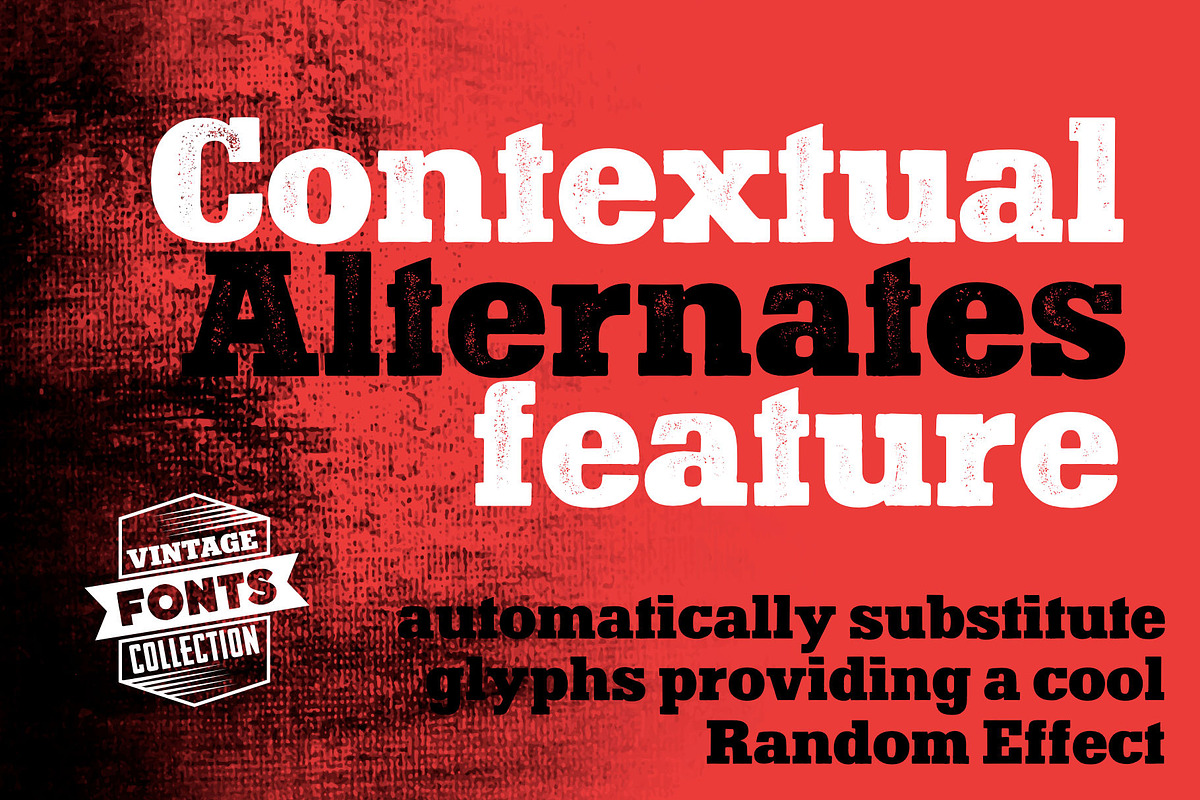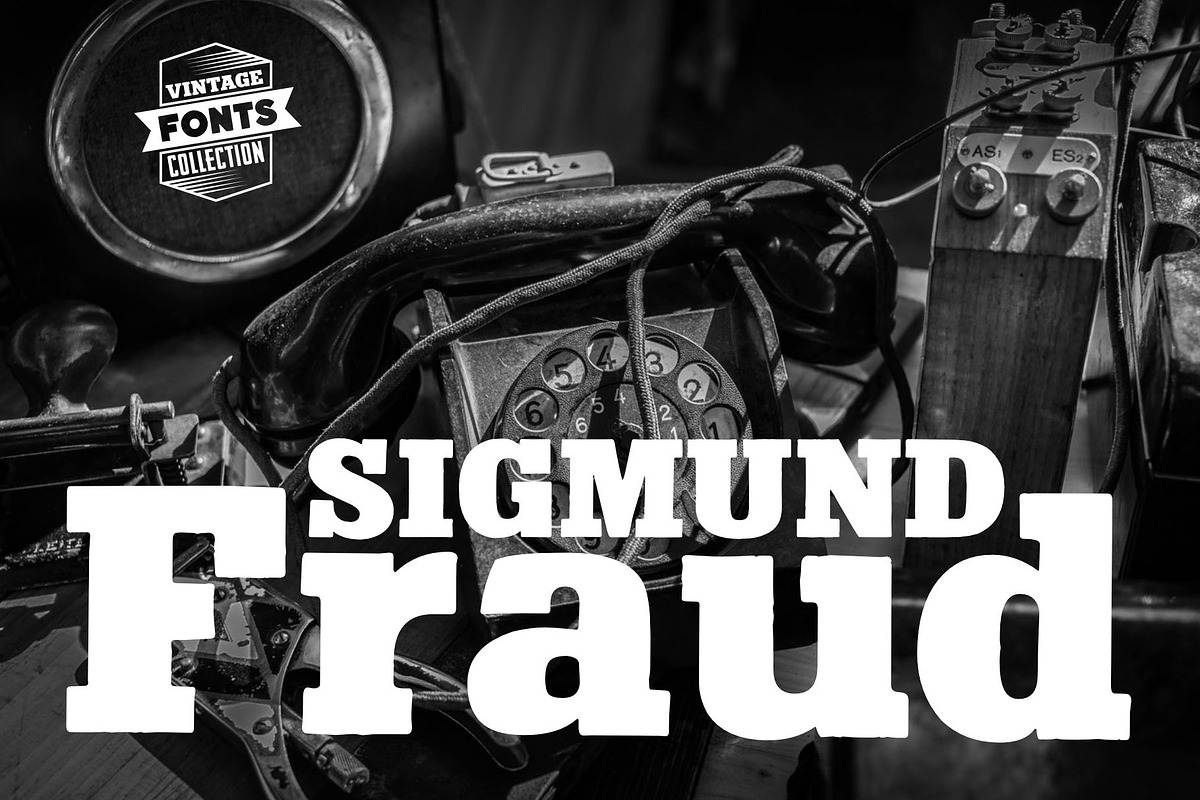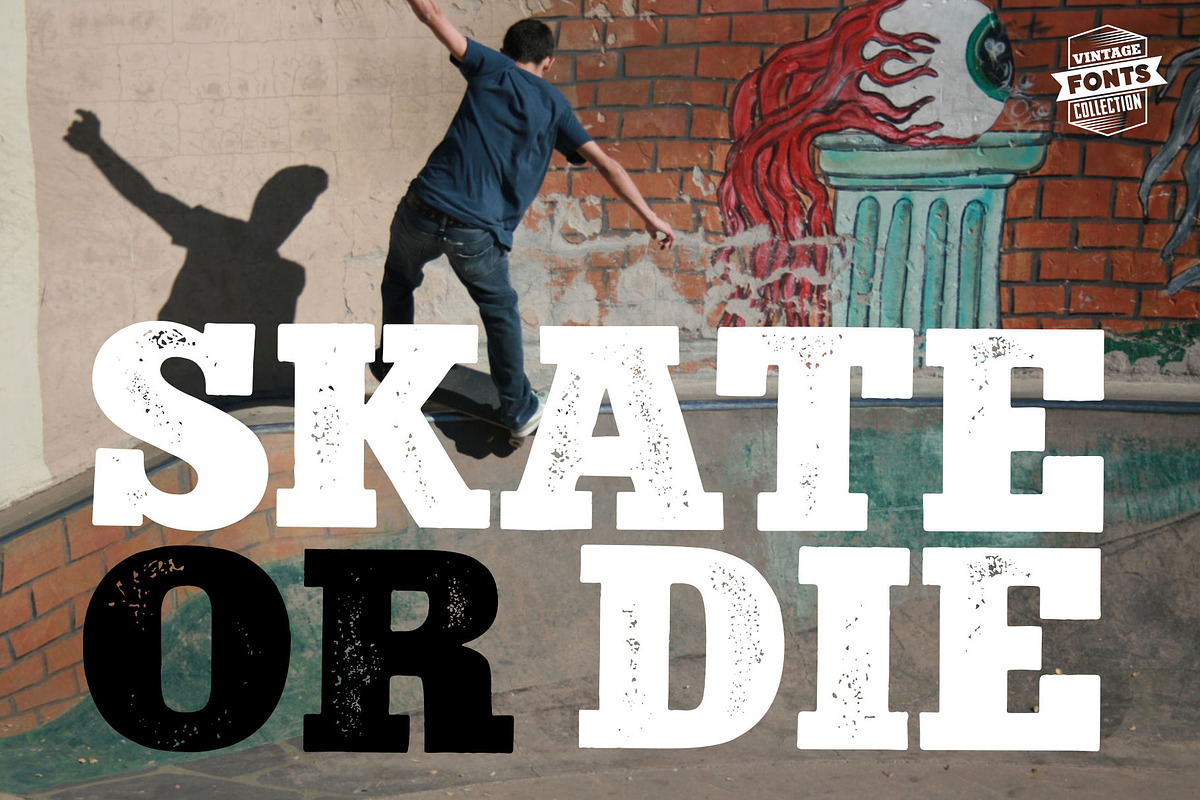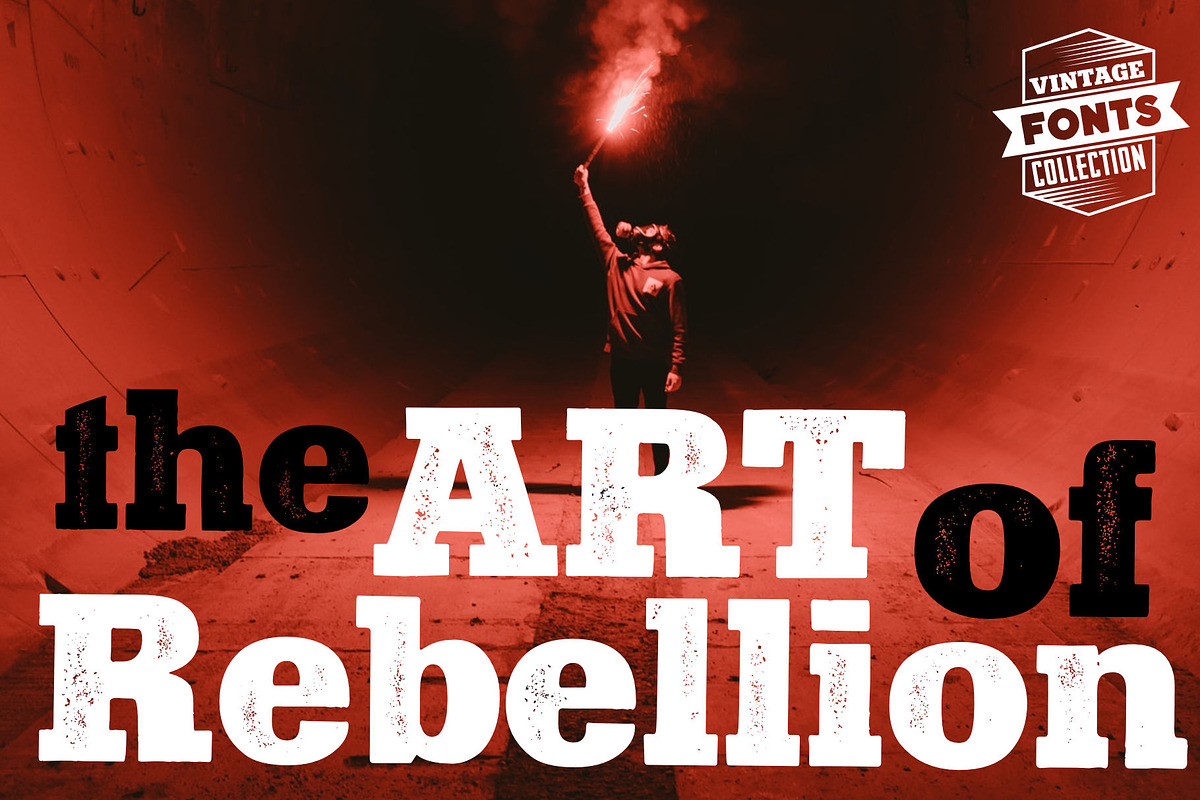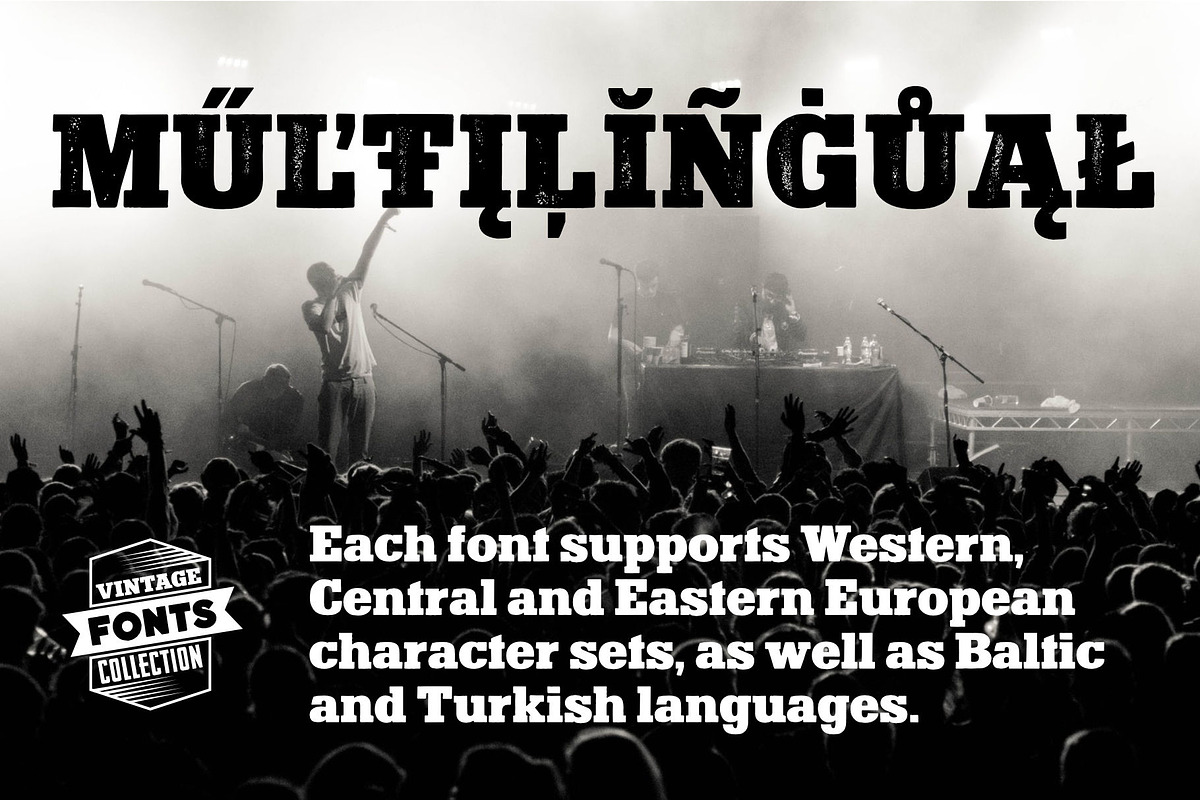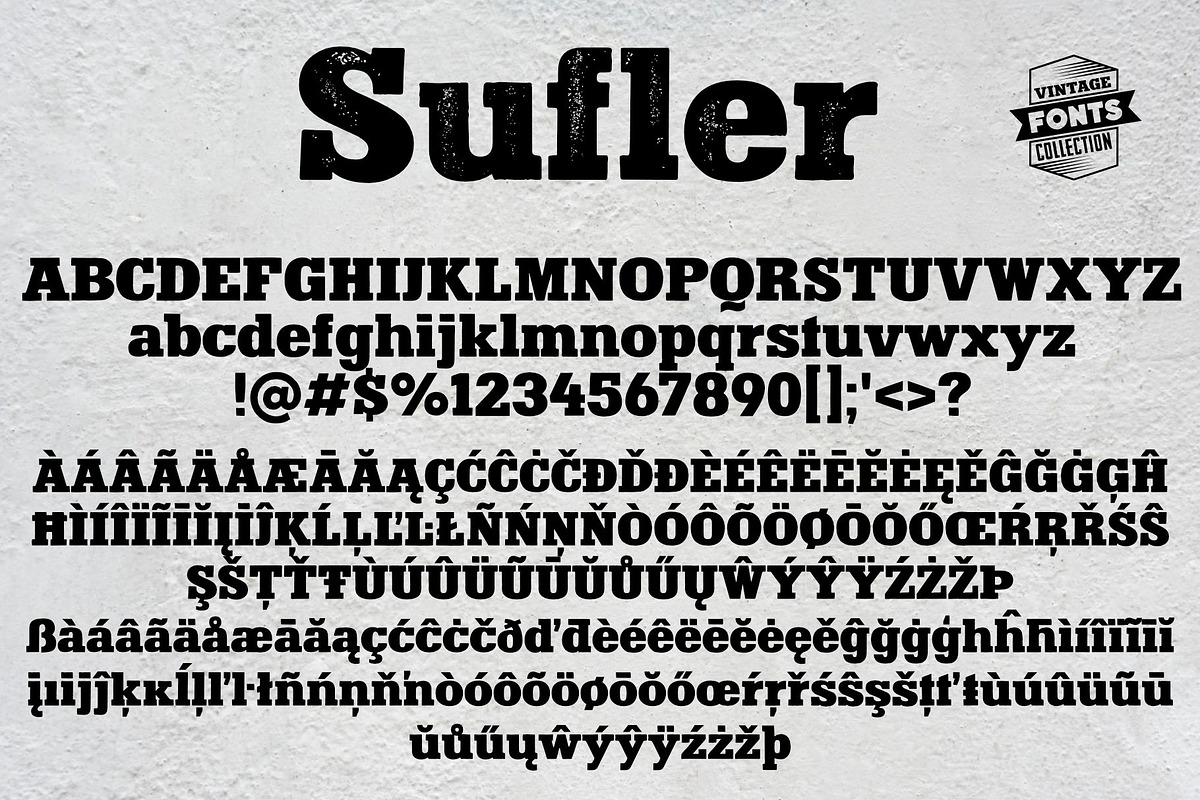
Sufler - 2 vintage fonts
Sufler is a set of 2 hand-drawn fonts inspired by vintage ads, old newspapers and retro sign painting. Every lowercase letter has three variations. When the font is used in OpenType-savvy applications, the 3 variants of glyphs are automatically alternated to achieve a random-like effect.
- Language support includes Western, Central and Eastern European character sets, as well as Baltic and Turkish languages.
- Every lowercase letter has three variations.
- When the font is used in OpenType-savvy applications, the 3 variants of glyphs are automatically alternated to achieve a random-like effect.